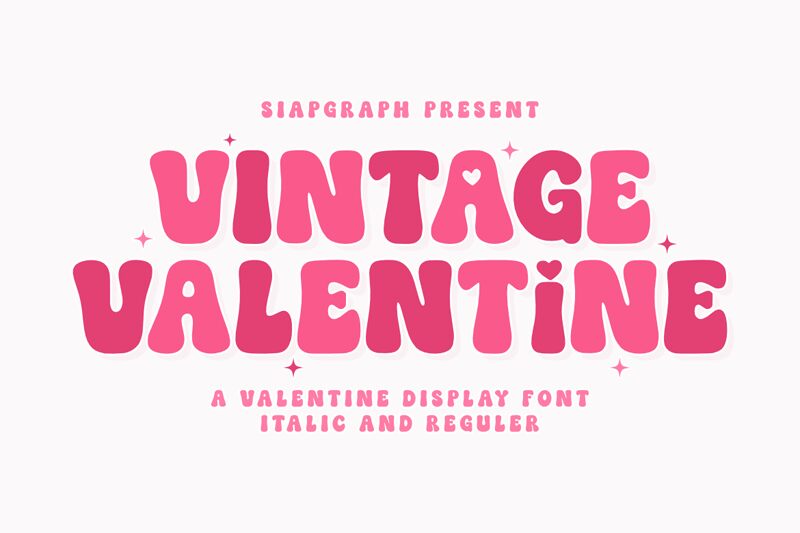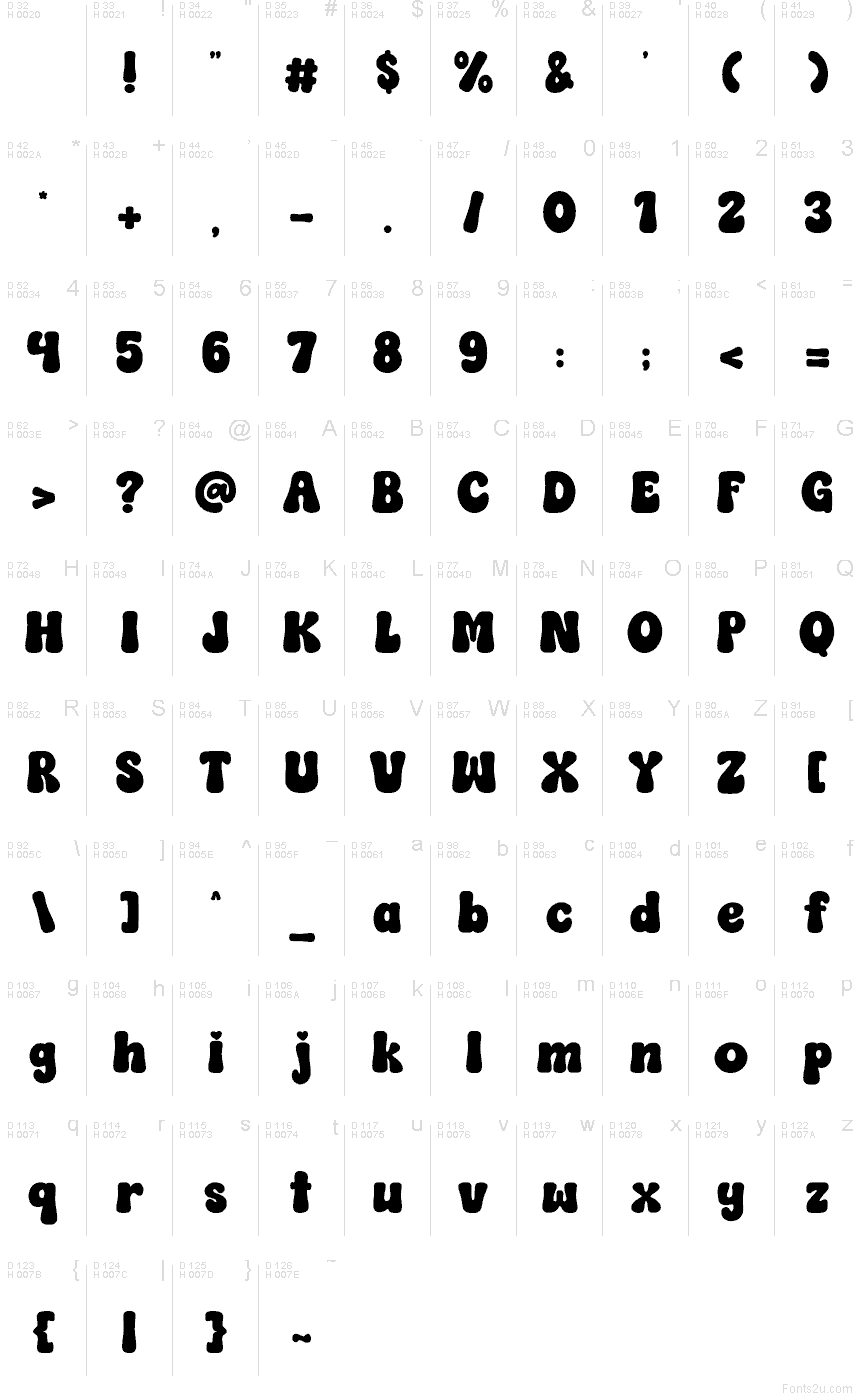
Vintage Valentine Regular
Vintage Valentine by SiapGraph is a free groovy Valentine display font shaped around puffed, rounded lettering and a small heart detail that keeps the theme present without turning every character into a novelty icon. The soft, inflated silhouette gives the design a sugary, poster-like presence that feels tied to cards, candy packaging, and cheerful romance graphics.
That tone makes sense on Valentine's Day invitations, gift tags, bakery labels, party signage, and social posts where short words need a warm decorative push. The broad rounded forms also help it anchor cute logos or headline treatments, especially for handmade goods, seasonal promos, and youth-focused packaging.